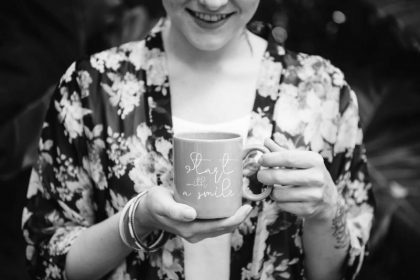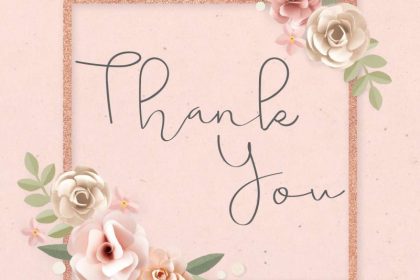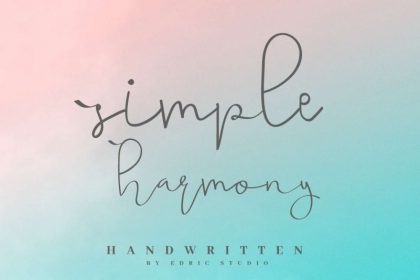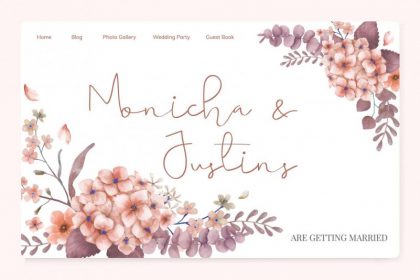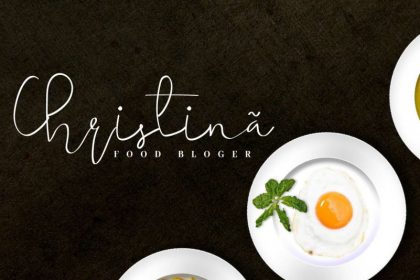
Simple Harmony Handwritting Font
Welcome aboard. Introducing the latest of our baby font : Simple Harmony Handwritting Font. This is a simple calligraphy font script. It supports most of international language characters. It has a unique glyphs set. Exclusively made by our artist here from our studio in Bandung Indonesia. Simple Harmony Font will be awesome for all your projects/ products : cover, banner, social media, magazine, product label, tag, etc